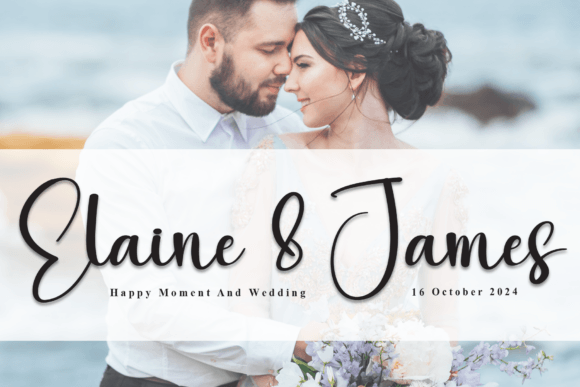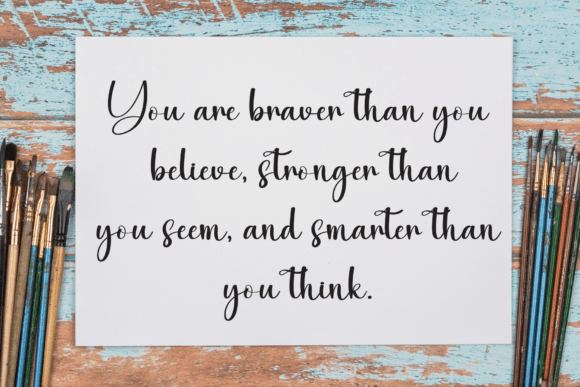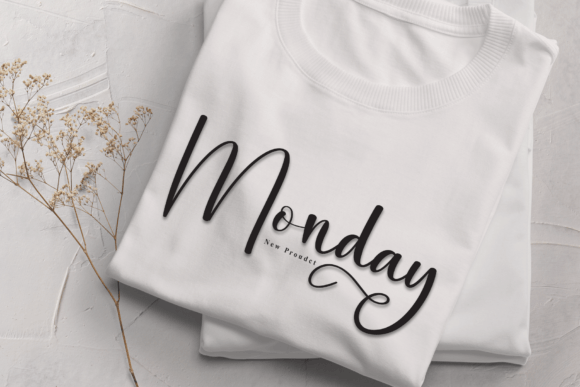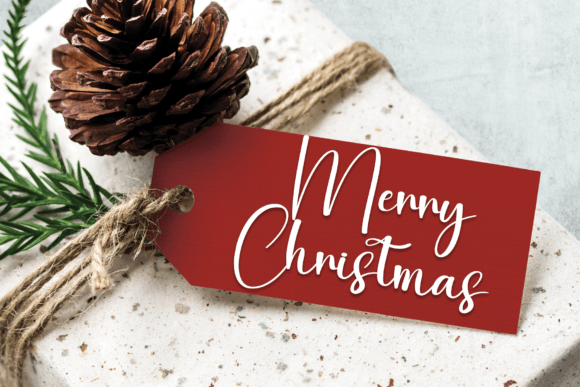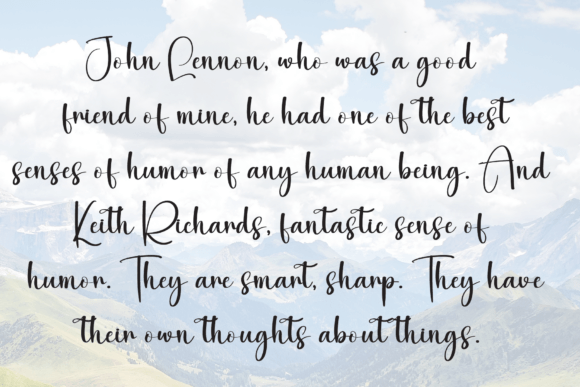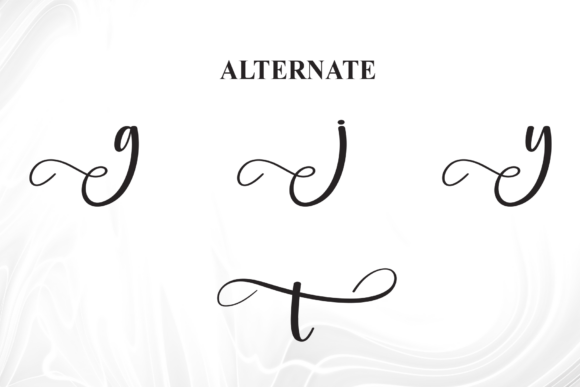
Busting Font: Elevate Your Designs with Timeless Elegance
As a designer, there’s nothing quite like the thrill of bringing a client’s vision to life. Whether it’s a wedding invitation, a heartfelt thank you note, or a company logo, the right font can make all the difference. I recall a recent project where I stumbled upon the perfect script font – Busting Font. Its elegant, flowing lines instantly captured the essence of the client’s desire for a handwritten touch.
Busting Font is a stunning script font that exudes sophistication and charm. With its versatility, it’s perfect for a wide range of designs, from wedding invitations to business cards. For designers, this font is a valuable asset, offering a unique and stylish element to add to any project. By incorporating Busting Font, designers can elevate their work and create truly memorable designs that leave a lasting impression.
Busting Font Key Features
- Unique Characteristics: Busting Font features a distinctive, hand-drawn design with subtle imperfections, giving it a human touch and making it stand out in modern typography.
- Font Style Variations: Busting Font offers a range of font styles, including Regular, Bold, Italic, and Bold Italic, allowing designers to create visually appealing and dynamic typography.
Busting Font Review
I recently had the chance to work with the Busting Font, and I must say it’s an interesting choice. Here’s my honest take on it:
- Unique aesthetic: The Busting Font has a quirky, hand-drawn feel that can add a touch of personality to your designs.
- Good for titles and headings: The font’s bold lines and playful style make it well-suited for use in titles and headings.
- Limited legibility: At smaller font sizes, the Busting Font can become difficult to read due to its irregular letterforms.
- Not ideal for large blocks of text: The font’s playful style can become overwhelming when used extensively, making it less suitable for large blocks of text.
While the Busting Font has some unique strengths, its limitations make it a less-than-ideal choice for general use. However, if you’re looking for a font that can add some personality to your designs, it might be worth considering.
Getting the Most Out of Busting Font
For optimal results, use Busting Font in bold or italic styles to add emphasis to your text. Experiment with different font sizes and colors to create visual hierarchy and contrast in your design.
Busting Font is commonly used in headings, titles, and emphasis text in designs. It’s also used to add a playful or quirky touch to text-based elements.